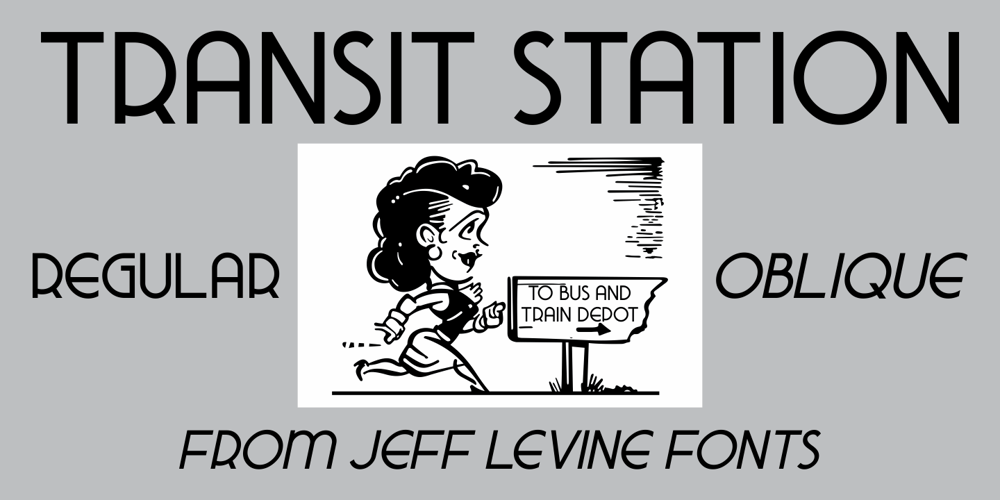
Transit Station JNL Font Family was designed by published by Jeff Levine. Transit Station JNL contains 2 styles and family package options. The thin and stylish Art Deco lettering of a neon sign above the Greyhound bus terminal entrance in a 1930s New York City photo inspired Transit Station JNL, which is available in both regular and oblique versions.